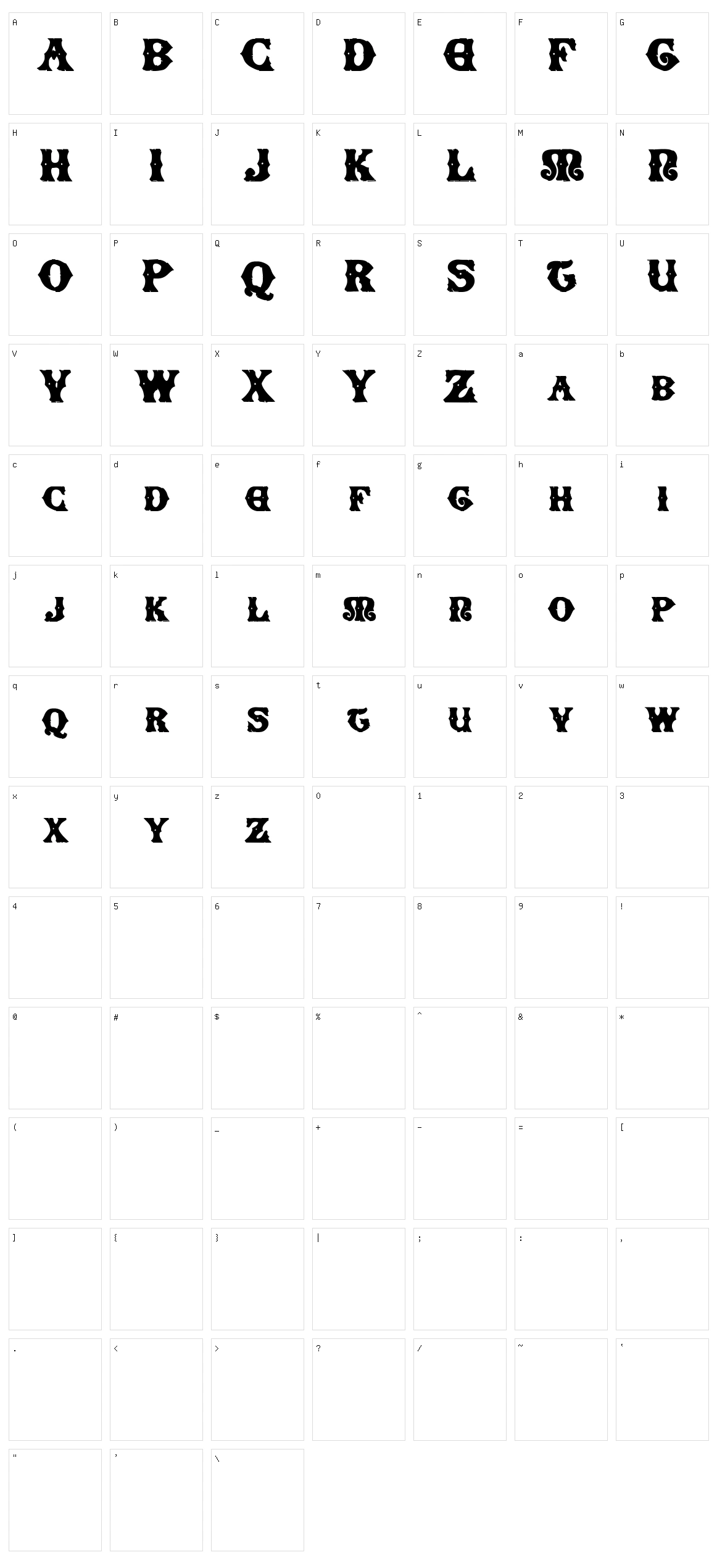
The free font Senectus Morbus is carefully designed by Intellecta Design, showcasing a thoughtful balance of creativity and usability and belongs to the Gothic font family. When you download the ZIP file, it contains only 165.57 KB of font files, making it lightweight and quick to download. Please review the license details below to understand permitted usage and distribution rights. If license information is not available, we recommend using this font for personal projects only or contacting the author directly for commercial usage permissions.